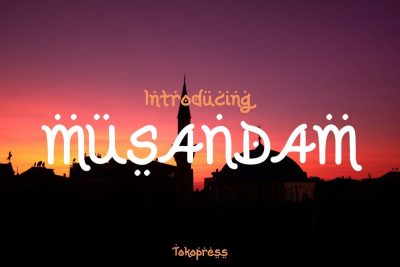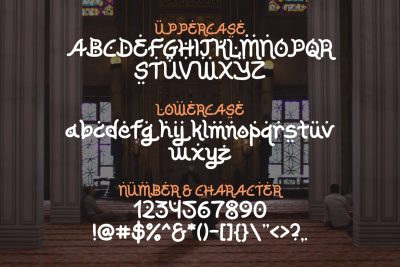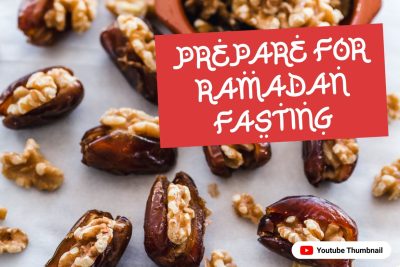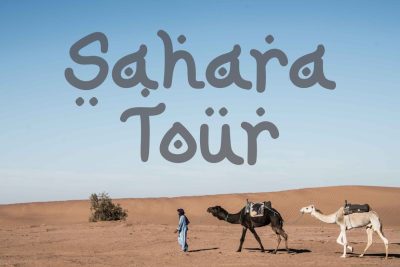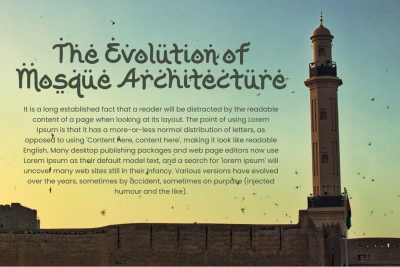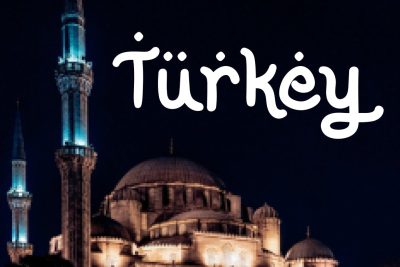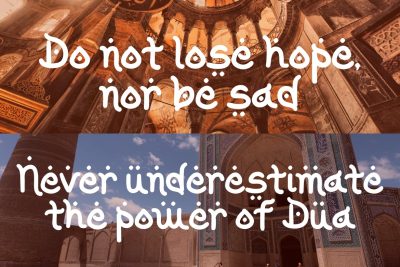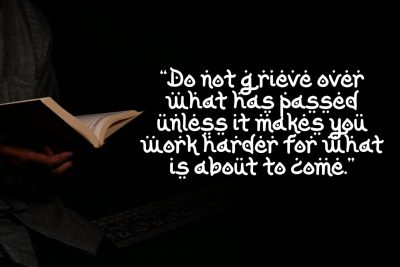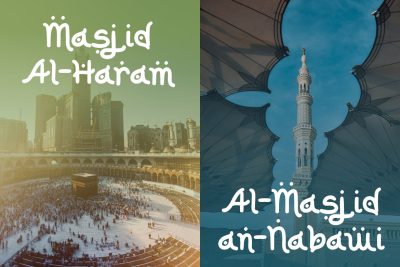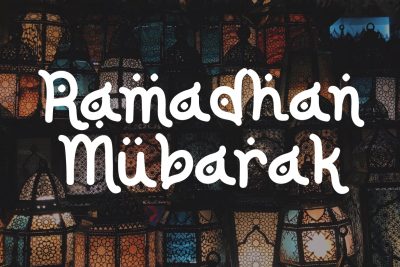
The Instagram Font Musandam is a visually striking typeface that combines traditional Arabic calligraphic elements with a playful, modern aesthetic. Not only does it feature clean lines and soft curves, but it also includes unique accents that add a sense of creativity and authenticity. As a result, this font brings a warm, expressive touch to digital content, making it stand out in both formal and informal contexts.
Moreover, the Musandam typeface is incredibly versatile, making it perfect for enhancing visual appeal on Instagram posts, stories, and other social media content. Its decorative elements, such as dots and diacritics, give it a unique cultural charm that is sure to captivate audiences. In addition, it is designed with legibility and creativity in mind, allowing it to transition seamlessly from artistic to professional uses. Therefore, it embodies a balance between tradition and modernity.
With its handcrafted vibe, Instagram Font Musandam is an excellent choice for personal branding, event promotions, and lifestyle-oriented projects. Furthermore, the fontโs dynamic personality captures attention and communicates a sense of fun and individuality. Whether used for travel blogging, cultural storytelling, or festive announcements, this typeface consistently adds a distinctive flair to your designs.
Instagram Font Musandam Perfect For
Instagram Font Musandam is ideal for individuals and brands looking to create content that stands out with cultural depth and artistic expression. Its playful yet elegant design appeals to a wide variety of audiences, including:
- Content Creators & Influencers
Those in the fashion, travel, and lifestyle industries will love how this font reflects their personality. For example, it adds a unique touch to captions, quotes, and aesthetic visuals on Instagram and beyond. Furthermore, its stylish appearance ensures that every post looks polished and professional. - Small Businesses & Artisans
Whether youโre promoting handmade goods, food services, or cultural workshops, this font provides your branding materials with an approachable yet polished look. Additionally, it helps small businesses create a sense of identity and uniqueness that resonates with their target audience. - Graphic Designers
For professionals working on logos, posters, or digital campaigns, Musandam offers a fresh option with a nod to Arabic influences. As a result, it can adapt to both modern and cultural themes effortlessly. Moreover, its distinctive design ensures that your work remains memorable and visually engaging. - Event Planners
From wedding invitations to festival banners, the Musandam font enhances festive vibes with its charm. Furthermore, its decorative style suits celebrations, especially those rooted in tradition or heritage. In addition, it helps create an emotional connection with the audience, making every event feel special.
If you’re looking for a way to make your Instagram feed unforgettable or design content that speaks to global audiences, Instagram Font Musandam is a must-try typeface. Additionally, it provides the perfect combination of artistic flair and cultural significance to elevate your visual storytelling.